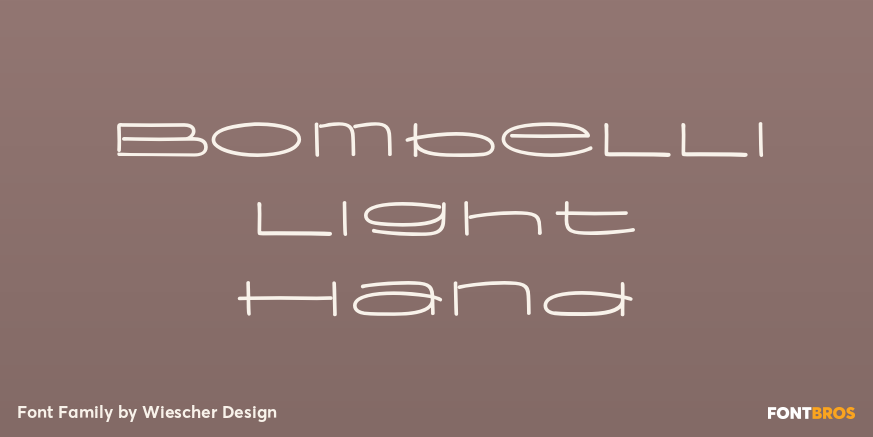
Bombelli Light Hand
About Bombelli Light Hand
Bombelli is a font that looks like it has been handwritten by a meticulous architect in one of those hand-drawn blueprints of the old days. I chose the name to honor one of my ex-bosses — a graphic designer-architect who taught me a lot of things when…